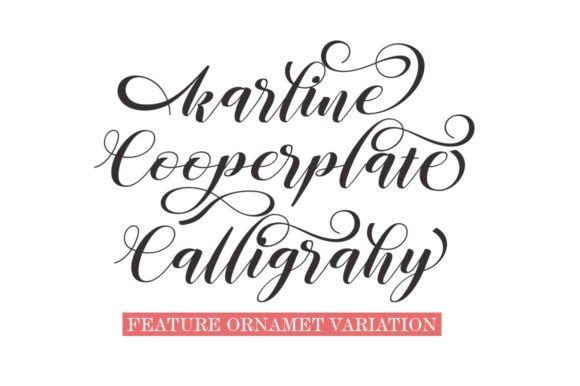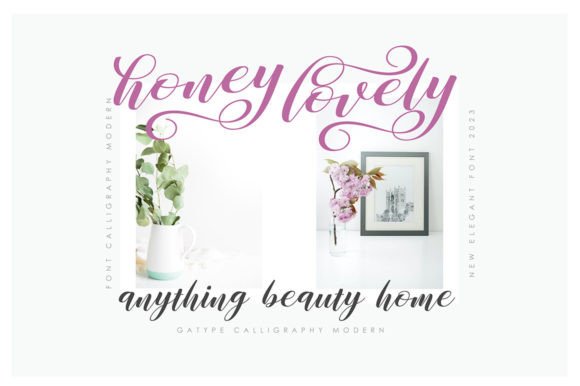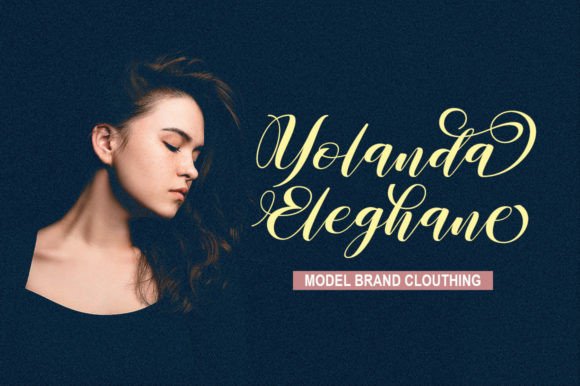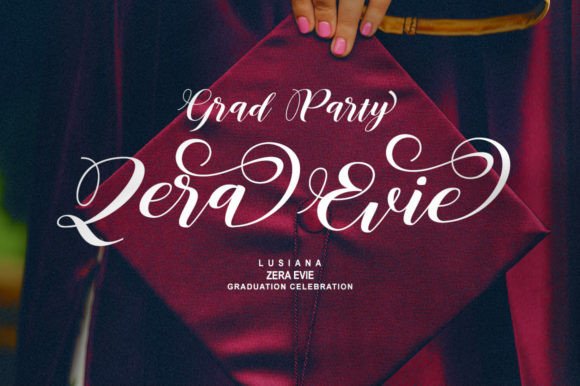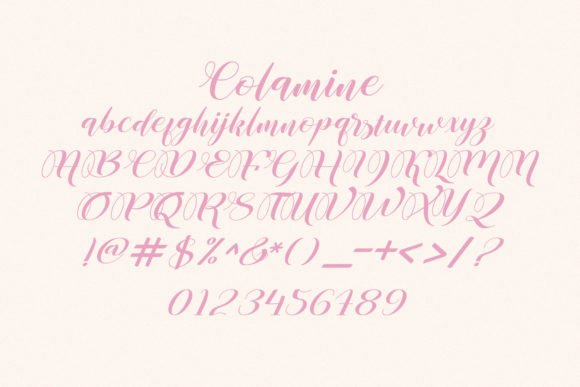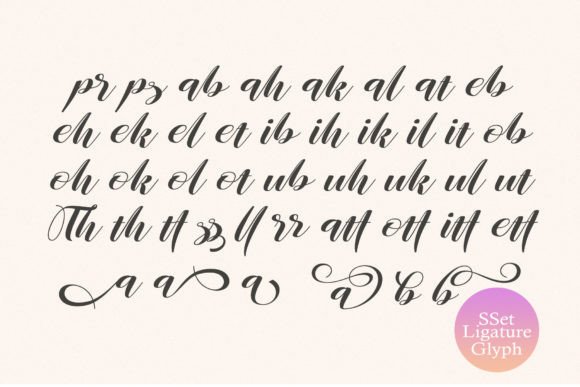
Introducing Colamine Font: The Elegant and Charming Choice for Designers and Crafters
Are you looking for a font that exudes elegance and charm? Look no further than Colamine Font. This beautiful handwritten font is perfect for adding a touch of sophistication to any design project. Whether you’re working on wedding invitations, thank you cards, quotes, greeting cards, logos, business cards, or any other design that needs a handwritten touch, Colamine Font is the ideal choice.
The Characteristics of Colamine Font
Colamine Font is a carefully crafted font that boasts a range of characteristics that make it stand out from the crowd. Its elegant and charming appearance is perfect for designers and crafters who want to add a touch of personality to their work. The font features:
- Handwritten style: Colamine Font has a beautiful handwritten style that gives it a personal and unique touch.
- Elegant and charming: The font’s elegant and charming appearance makes it perfect for designs that require a sophisticated look.
- Versatile: Colamine Font is versatile and can be used for a wide range of design projects, from wedding invitations to business cards.
Uses of Colamine Font
Colamine Font is a versatile font that can be used for a wide range of design projects. Here are some of the most popular uses of this beautiful font:
- Wedding Invitations: Colamine Font is perfect for wedding invitations, adding a touch of elegance and sophistication to your design.
- Thank You Cards: The font’s charming appearance makes it ideal for thank you cards, allowing you to express your gratitude in style.
- Quotes: Colamine Font is a great choice for quotes, adding a touch of personality and elegance to your design.
- Greeting Cards: The font’s versatile appearance makes it perfect for greeting cards, allowing you to create beautiful and unique designs.
- Logos: Colamine Font can be used to create elegant and sophisticated logos that will help your brand stand out.
- Business Cards: The font’s professional appearance makes it ideal for business cards, allowing you to create a lasting impression.
Why Choose Colamine Font?
So why choose Colamine Font for your design projects? Here are just a few reasons why this font stands out:
- Unique and Personal: Colamine Font has a unique and personal touch that will help your designs stand out.
- Elegant and Sophisticated: The font’s elegant and sophisticated appearance makes it perfect for designs that require a high level of professionalism.
- Versatile: Colamine Font is versatile and can be used for a wide range of design projects.
Tips for Using Colamine Font
Here are a few tips for using Colamine Font in your design projects:
- Use it sparingly: Colamine Font is a beautiful font, but it can be overwhelming if used too much. Use it sparingly to add a touch of elegance to your design.
- Pair it with other fonts: Colamine Font can be paired with other fonts to create a unique and interesting design.
- Experiment with different colors: The font’s elegant appearance makes it perfect for experimenting with different colors and textures.
Colamine Font is a beautiful and elegant font that is perfect for designers and crafters who want to add a touch of sophistication to their work. Its versatile appearance makes it ideal for a wide range of design projects, from wedding invitations to business cards. With its unique and personal touch, Colamine Font is sure to become a favorite among designers and crafters.
So why not give Colamine Font a try? With its elegant and charming appearance, it’s sure to add a touch of magic to your design projects.